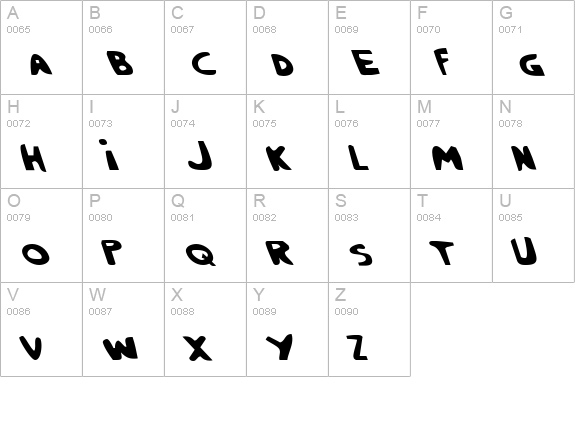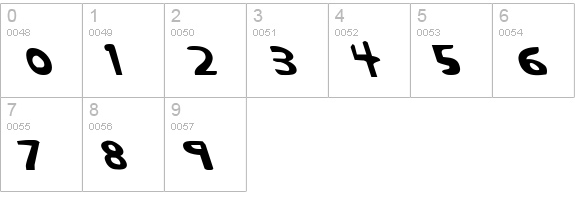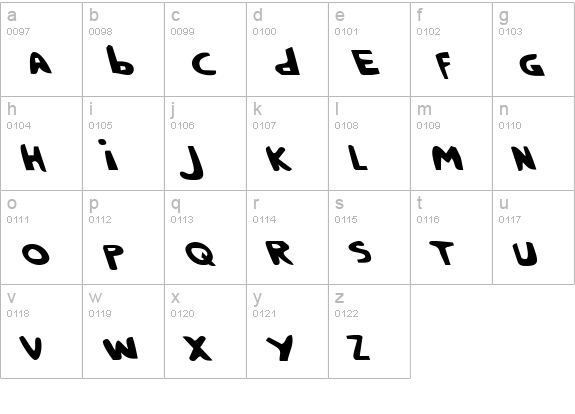
Introducing Crappity-Crap-Crap Leftalic font, a whimsical and playful typeface that adds a touch of fun to your designs. This font features quirky, irregular letterforms with a hint of humor, making it perfect for projects that need a lighthearted and creative touch. Crappity-Crap-Crap Leftalic font is freely available to download at FontsMarket.com, allowing you to easily add a unique flair to your designs without any cost. Embrace the quirky charm of Crappity-Crap-Crap Leftalic font and let your creativity shine with this free and delightful typeface.